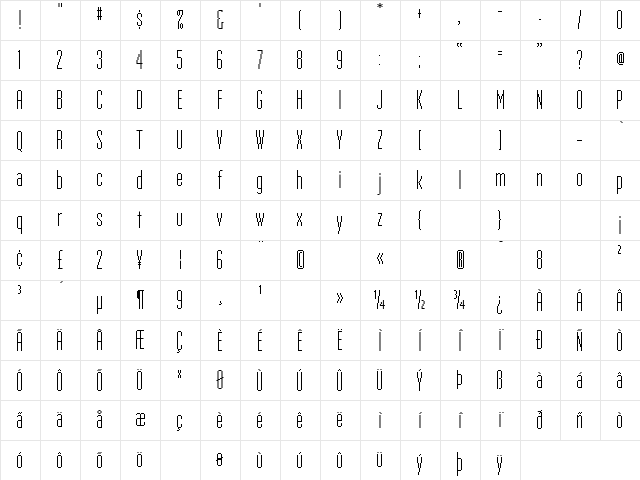
Complete UniversalNineTeen Regular glyph index. Displaying only characters natively supported by UniversalNineTeen Regular font.
UniversalNineTeen is a composed and adaptable typeface that performs quietly and consistently across a wide range of design contexts.
Pro Tip: Use UniversalNineTeen in both headline and body roles to test its range before committing to a single application.